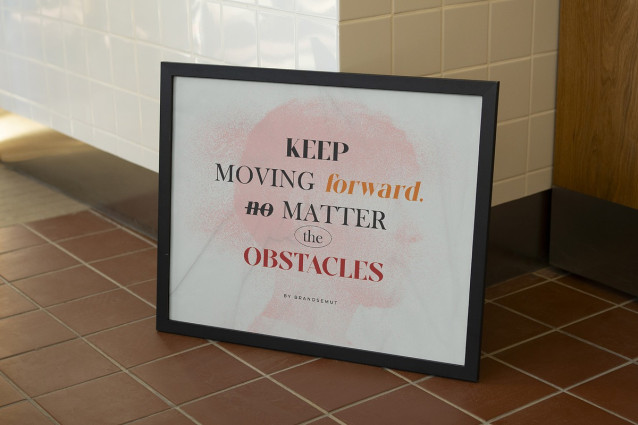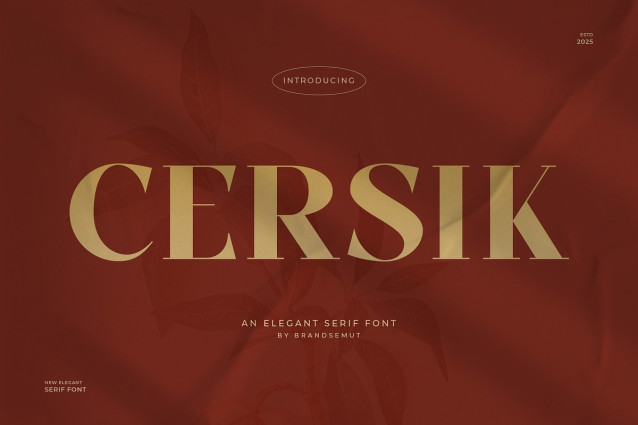
Cersik Font
Cersik Font is an elegant and modern serif font crafted for designers who demand sophistication and clarity. Featuring well-balanced uppercase and lowercase letters, this typeface offers timeless beauty with a modern edge — ideal for luxury branding, magazine headlines, premium packaging, wedding invitations, and fashion-related visuals.
Every stroke is carefully shaped to deliver authority, elegance, and visual harmony — making Cersik a powerful yet refined choice for high-end creative projects.